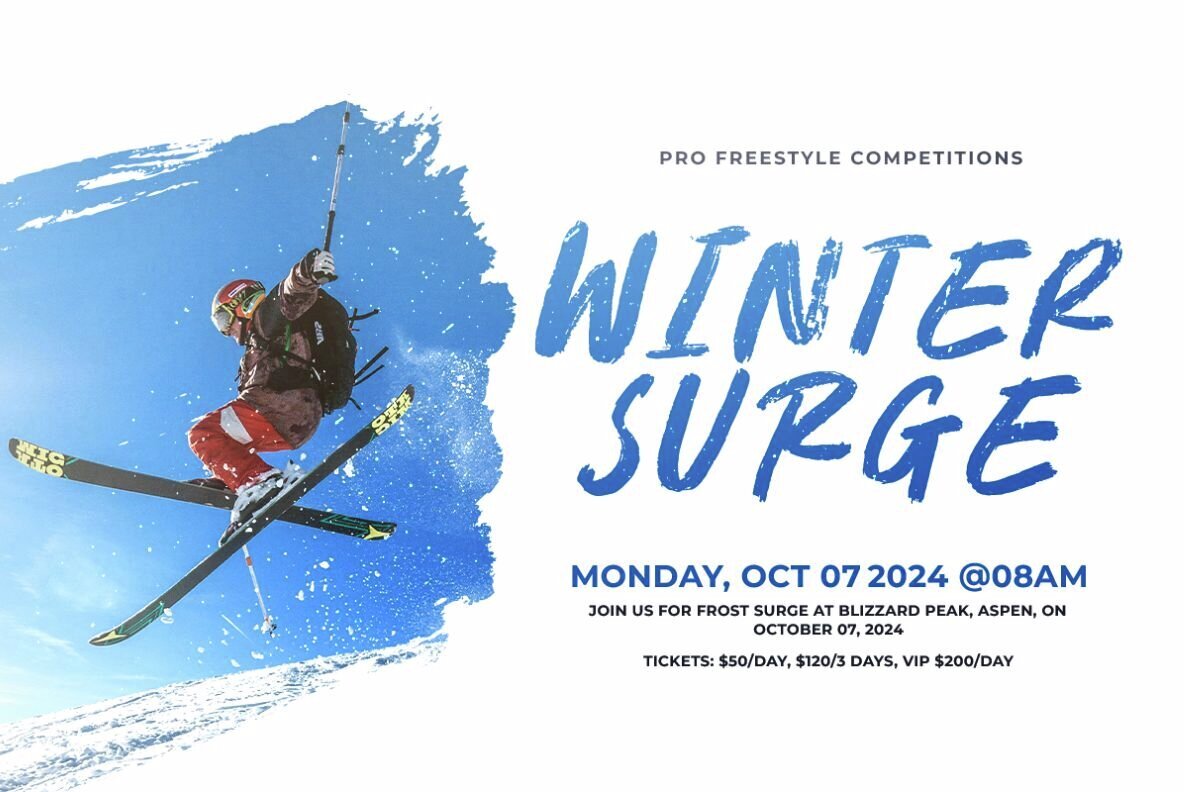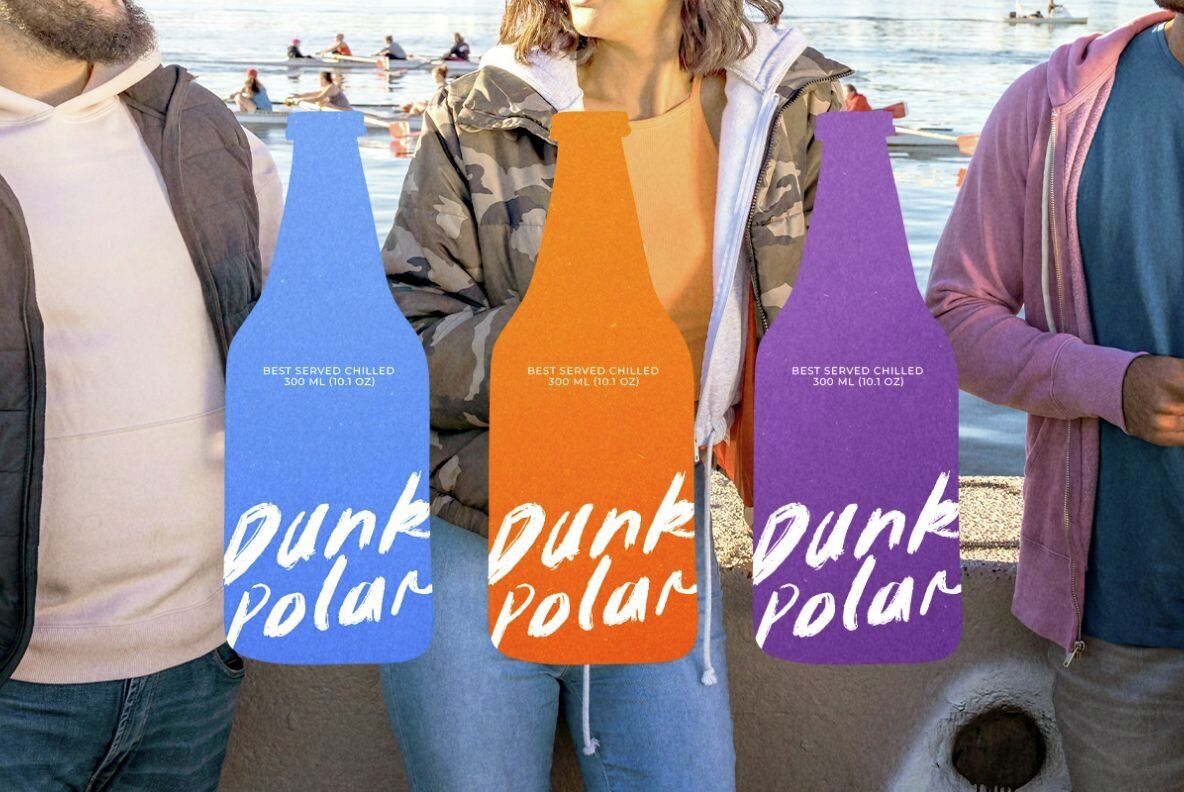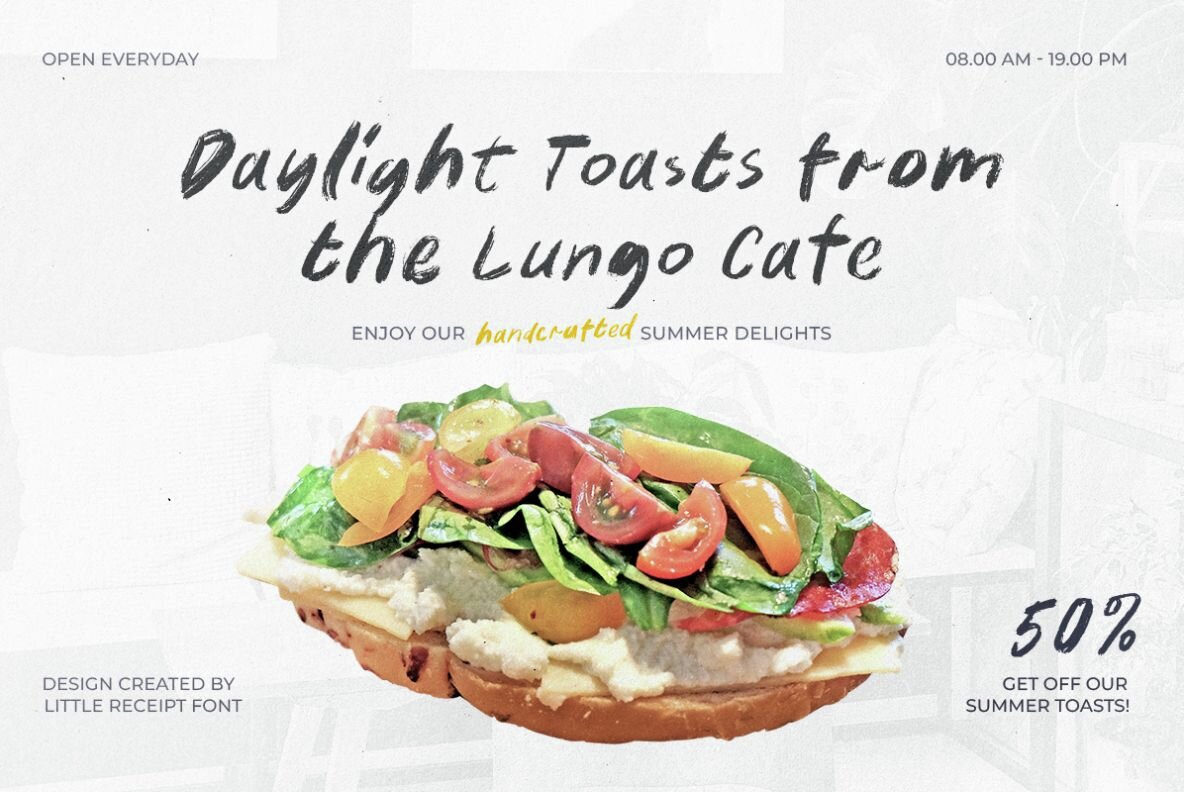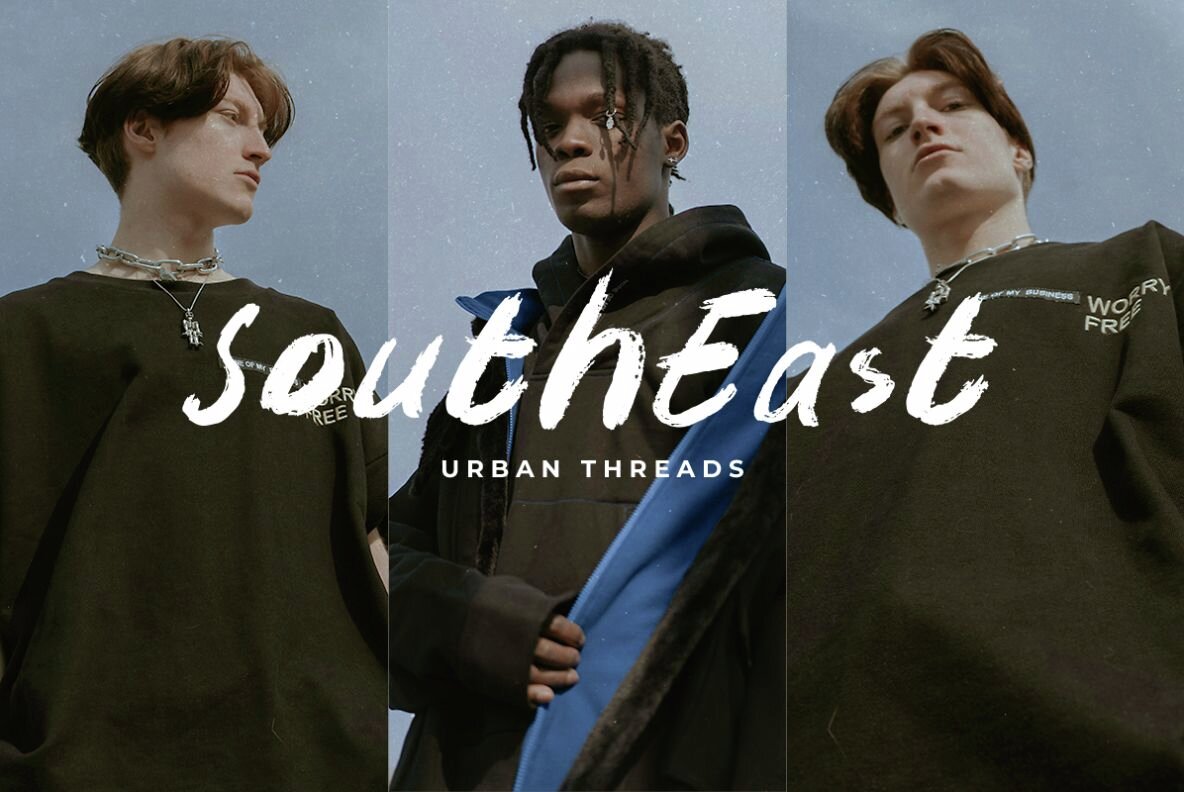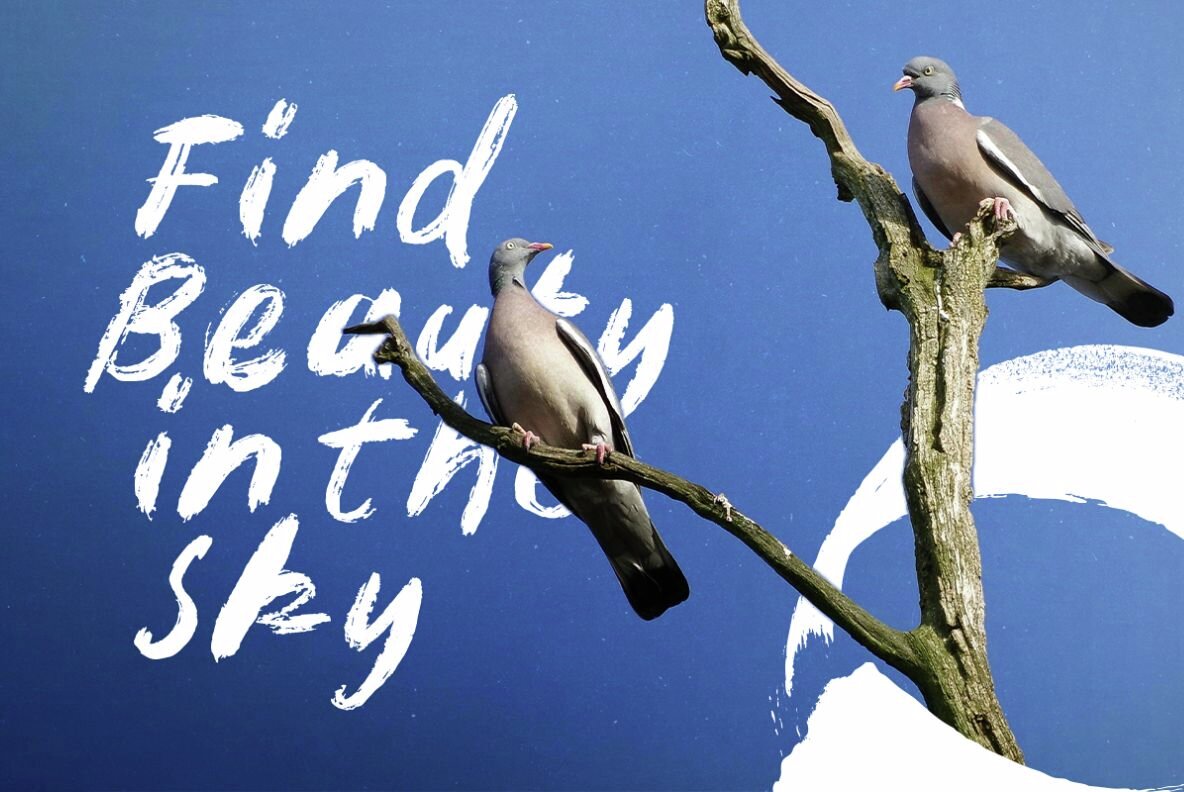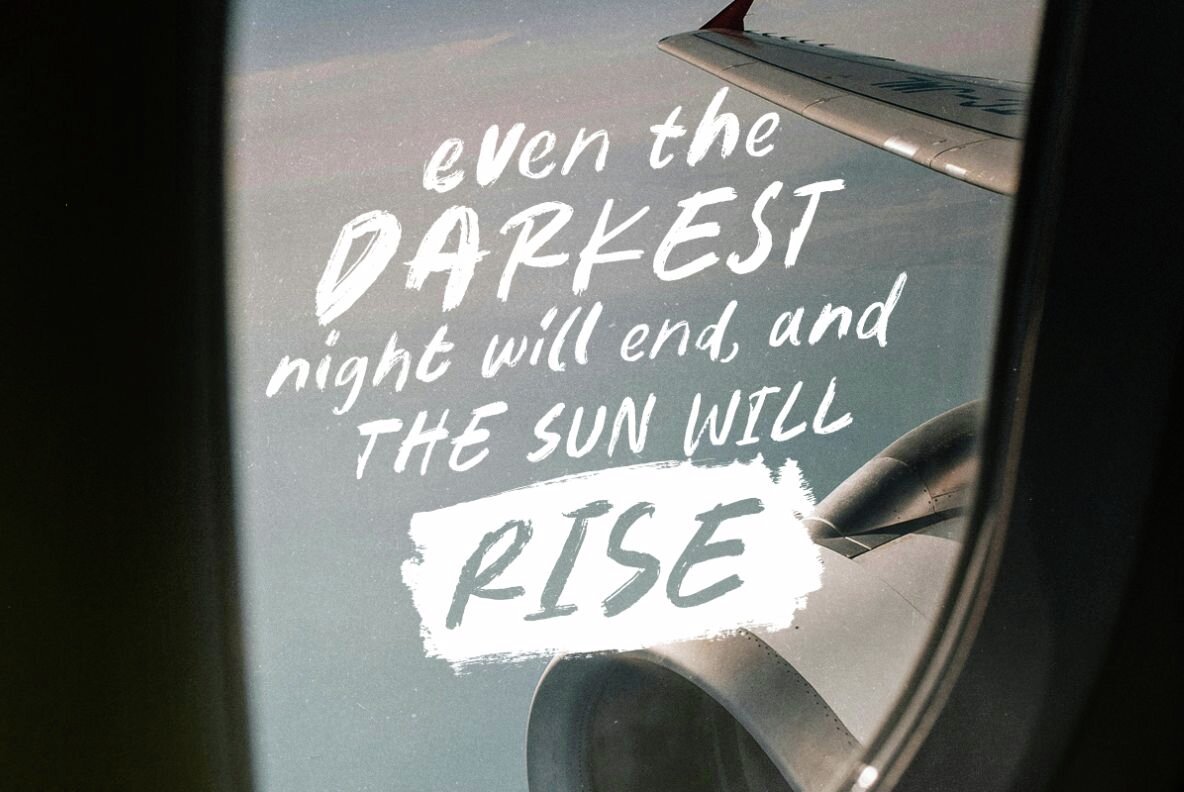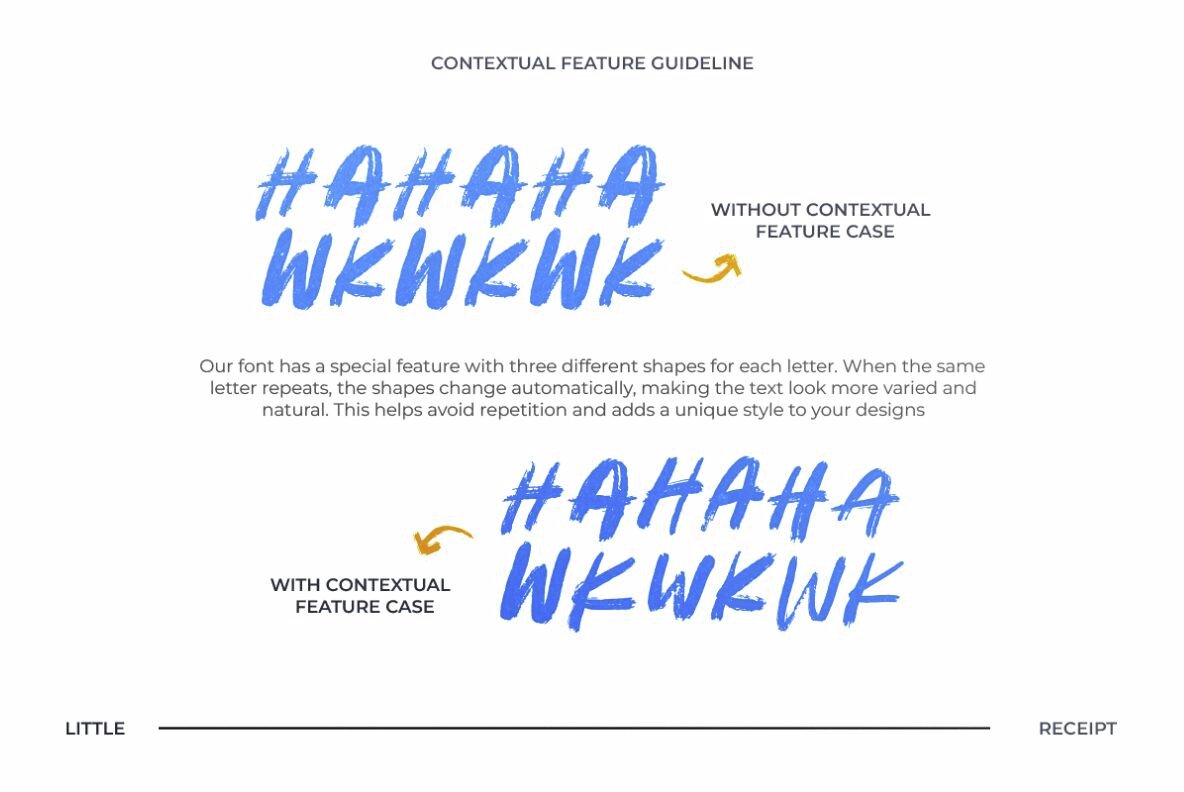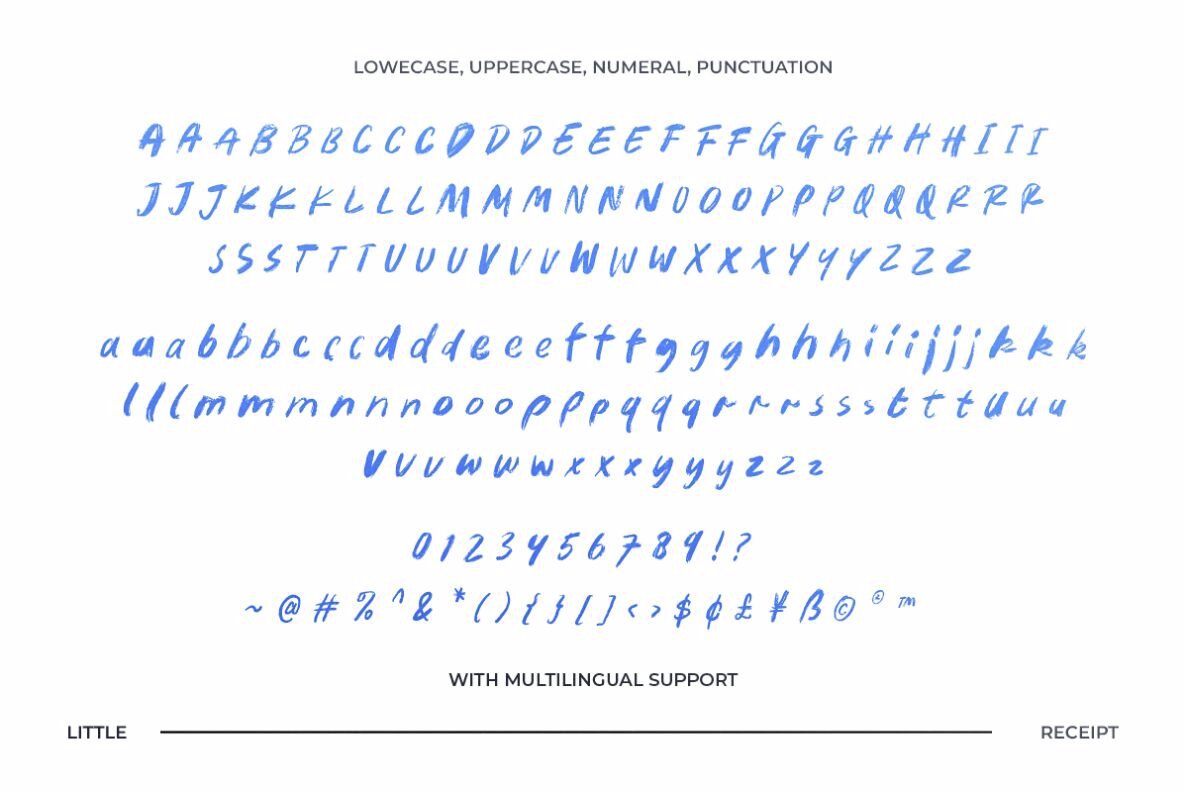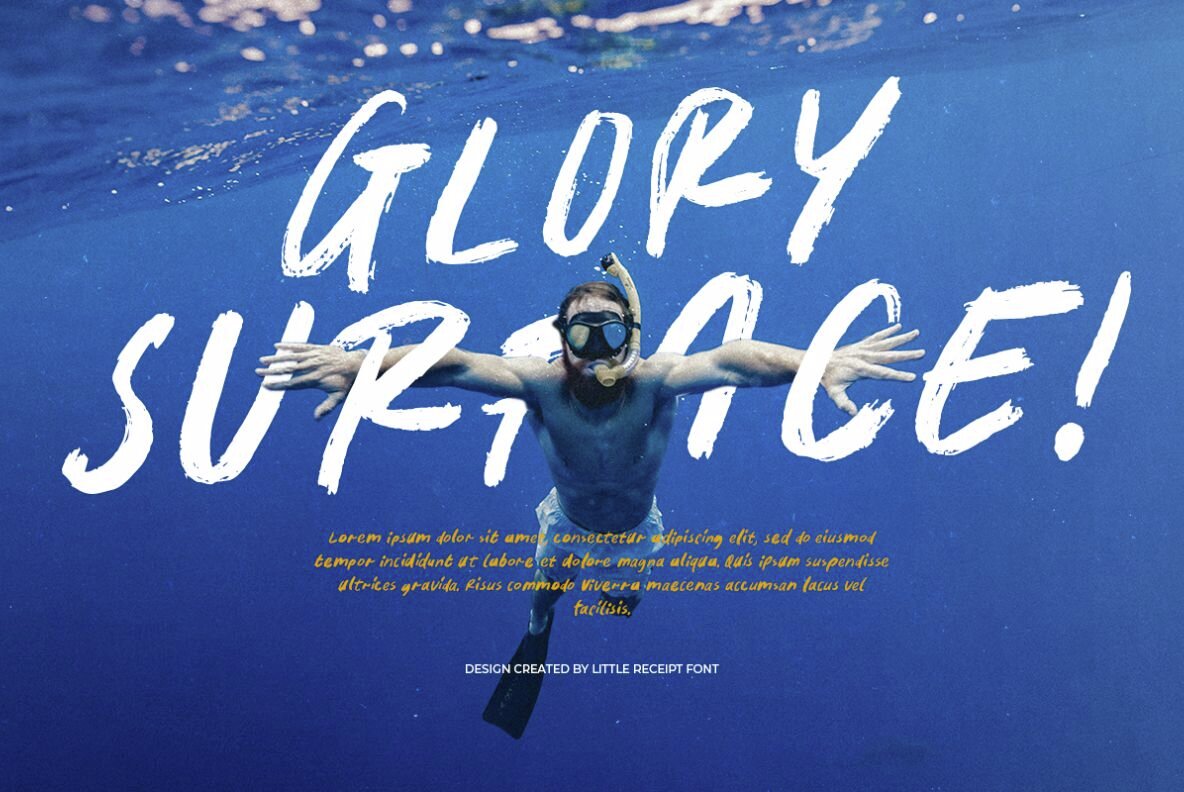
Little Receipt Font
Little Receipt Regular
Little Receipt is a distinctive handwritten font crafted with a rough, dry brush aesthetic. It offers three unique variations for each character, which automatically cycle through when you enable Contextual Alternates in OpenType features in Adobe Photoshop or Illustrator. This functionality ensures that your text appears organic and naturally varied, adding an authentic touch to your designs.
Perfect for a wide range of applications, Little Receipt is ideal for creating logos, slogans, and especially quotes. Its versatile design supports multiple languages, making it a valuable tool for global projects. By incorporating this font into your work, you achieve a handcrafted feel that stands out in creative projects.